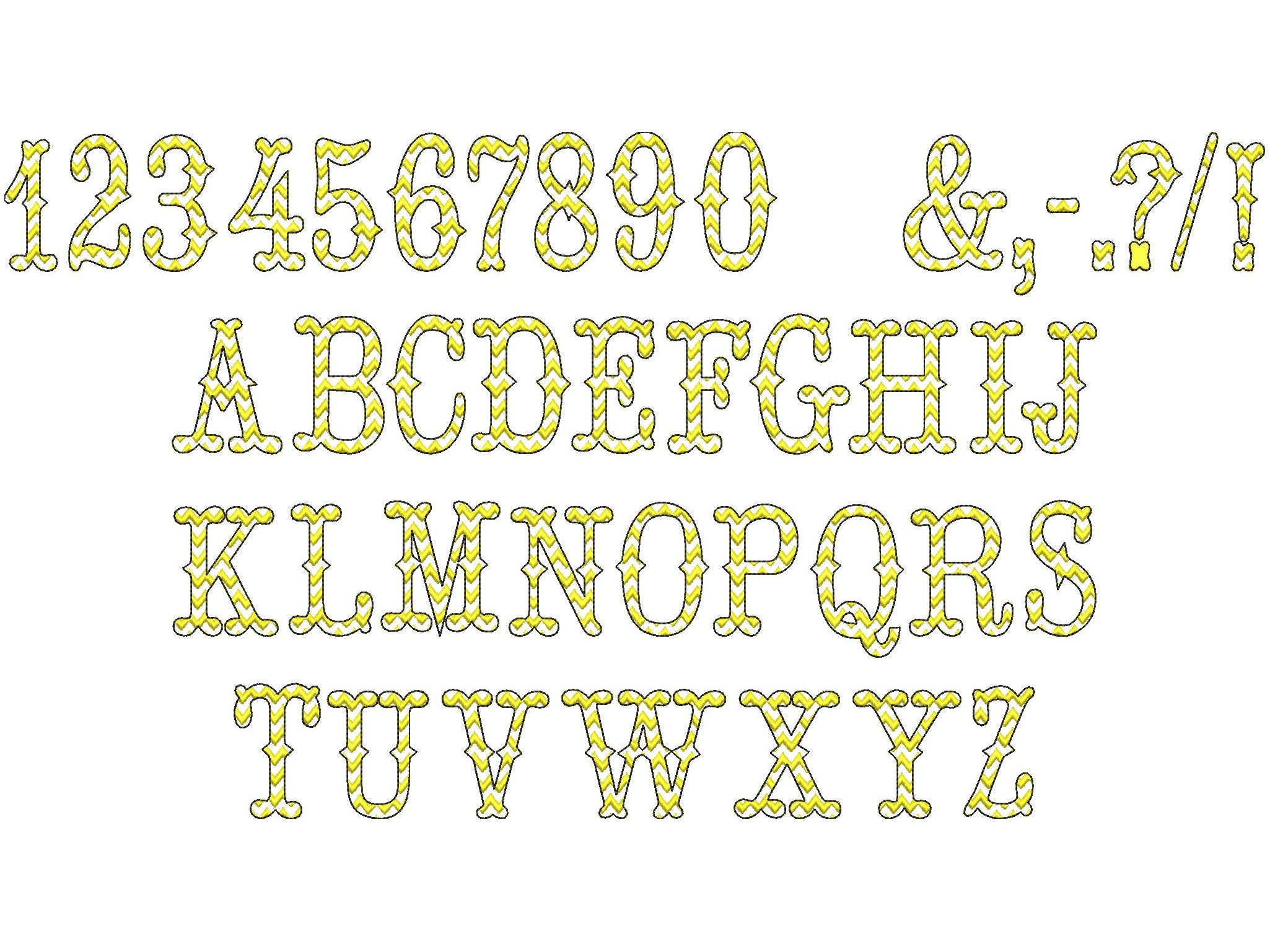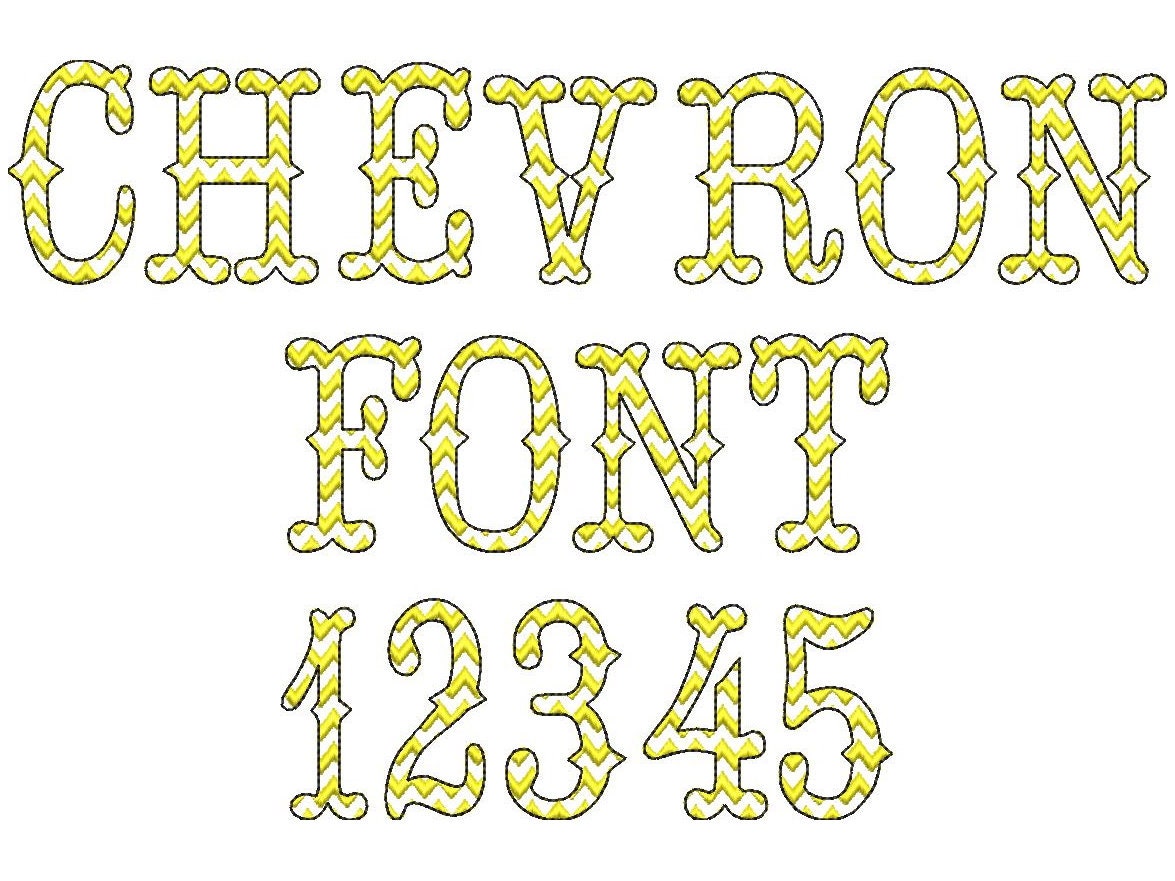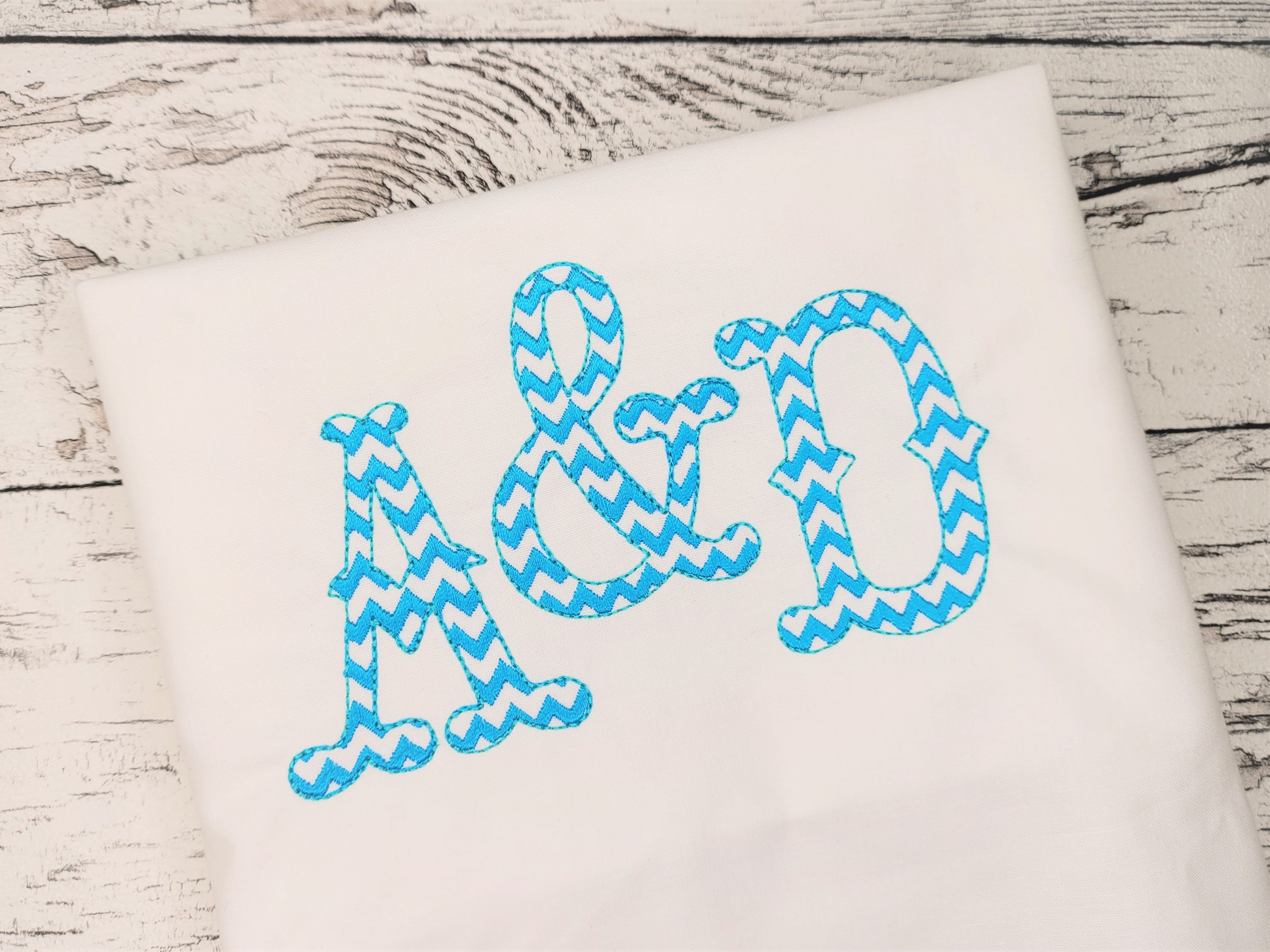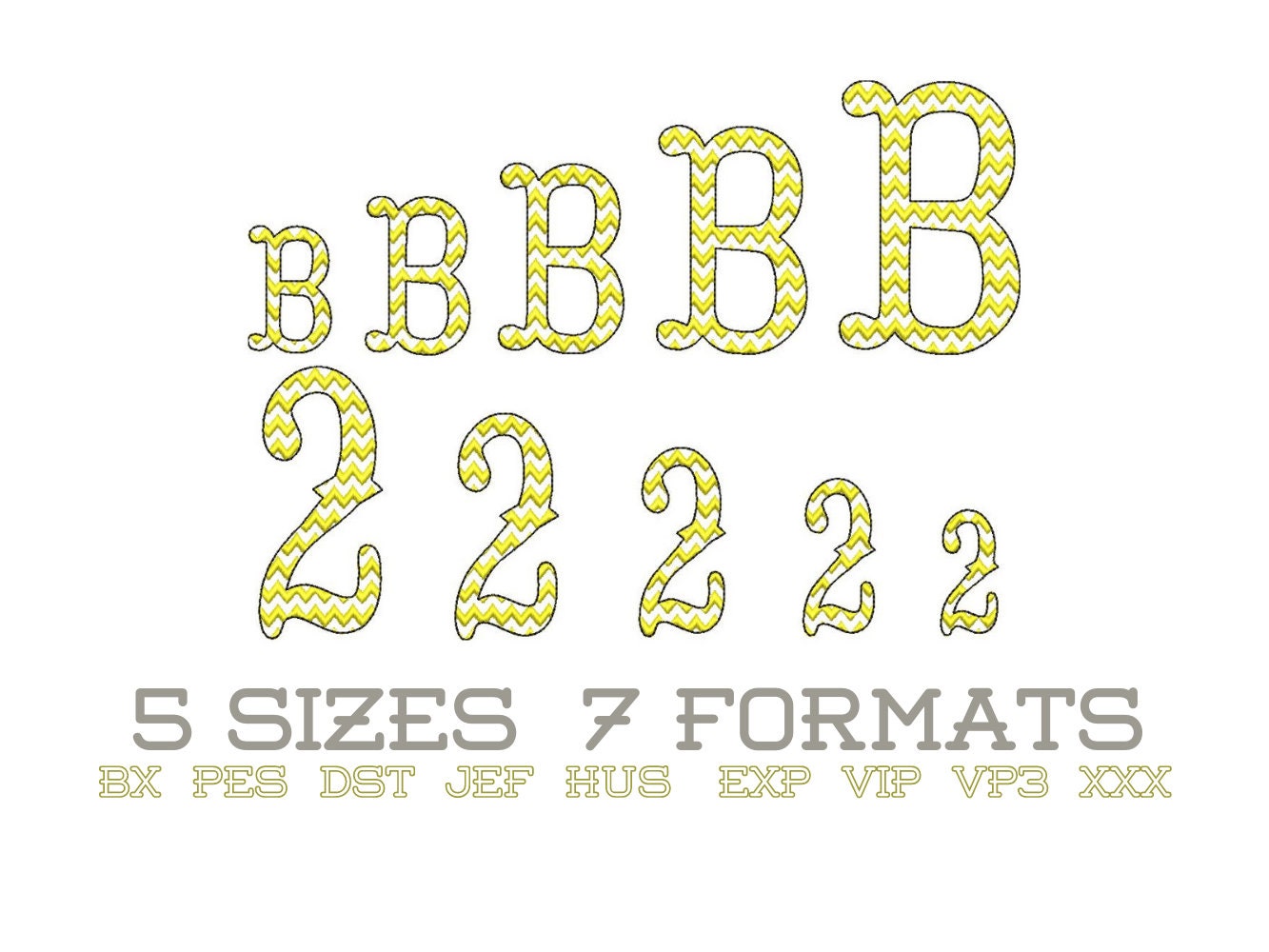
Chevron RIC RAC Western Font light sketch outline machine embroidery designs whole alphabet A-Z and numbers zig zag ricrac font monogram, BX
This is a quick stitch design, the background fabric looks through. Stunning effect.
Chevron lines are part of the embroidery.
Included whole alphabet uppercase A-Z, numbers 0-9 and punctuation & . - , ? / !